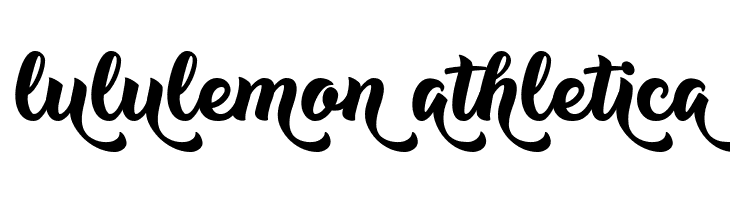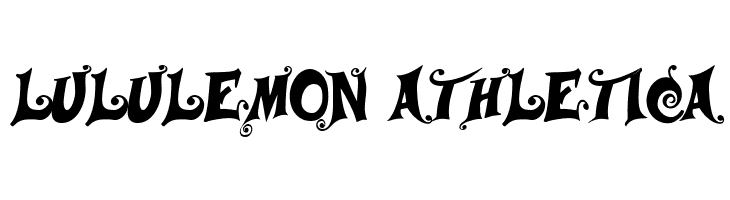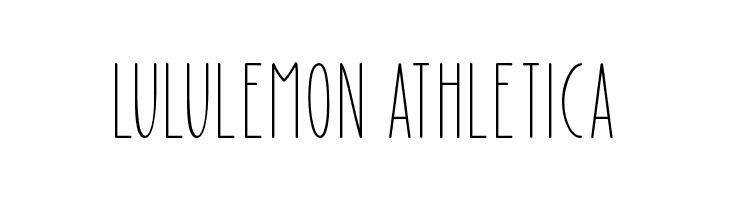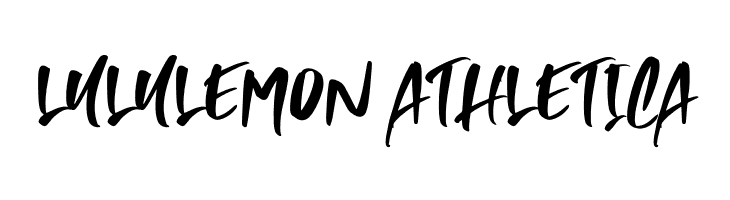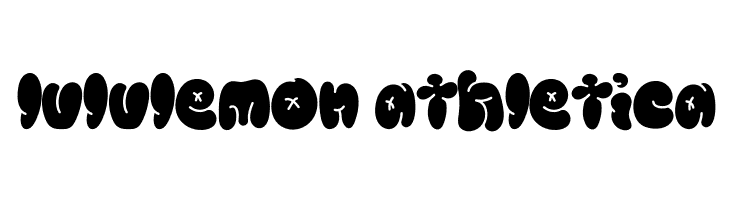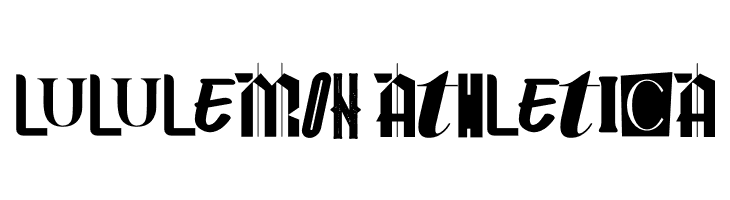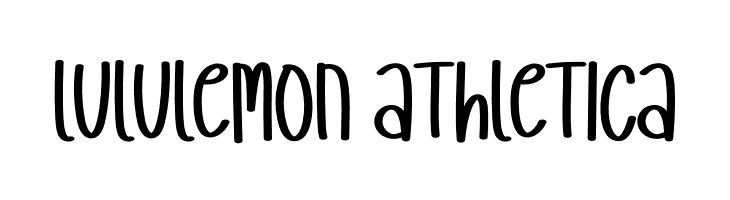
A playful, hand-drawn style font with tall, narrow letters and rounded edges.
A dynamic and elegant script font with flowing lines and a modern touch.
A sophisticated script font with flowing, connected strokes and elegant curves.
A dynamic and elegant script font with bold strokes and high contrast.
A flowing, cursive script with elegant loops and swashes.
A bold, flowing script font with elegant, interconnected characters.
A bold, dynamic script font with elegant curves and strong presence.
An elegant and flowing script font with intricate details and graceful curves.
A playful, handwritten font with a casual and dynamic style.
An elegant, flowing script font with high contrast and ornate details.
A modern, cursive font with a handwritten feel and elegant flow.
A playful and artistic script font with dynamic strokes and elegant curves.
A modern, geometric font with tall, narrow characters and uniform stroke width.
A modern, elegant script font with flowing cursive style.
A flowing, cursive font with elegant loops and a handwritten style.
A bold, distressed font with a vintage, rustic appeal.
An elegant and flowing script font with bold, ornate uppercase letters and cohesive lowercase forms.
A modern, geometric sans-serif font with rounded edges and consistent stroke width.
A modern, elegant handwritten font with fluid strokes and a sophisticated feel.
A bold, geometric font with a modern and futuristic design.
A bold, geometric font with a 3D outline effect, perfect for modern designs.
A bold, 3D italic font with a futuristic and dynamic style.
A bold, geometric font with a three-dimensional outline effect.
A bold, italicized font with a modern, outlined style.
A bold, geometric, and condensed font ideal for modern headlines.
A bold, condensed, and italicized font with a modern, dynamic style.
A bold, geometric font with a modern, futuristic style.
A bold, expanded, and italicized font with a modern and dynamic style.
A bold, modern font with a gradient effect created by horizontal lines.
A dynamic, gradient italic font with a futuristic and energetic style.
A bold, futuristic font with a halftone effect and geometric structure.
A bold, italicized font with a modern halftone effect.